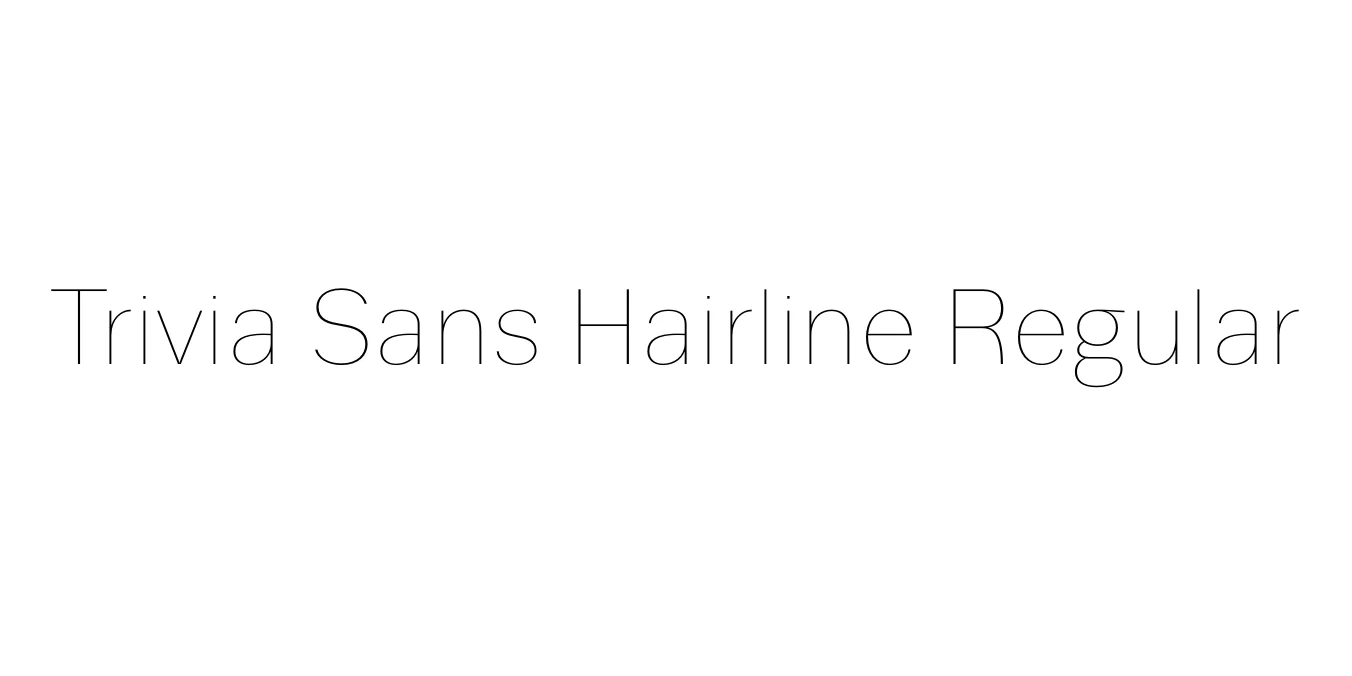
Trivia Sans Hairline Regular
Designed by František Štorm
Trivia Sans Hairline Regular is a sophisticated component of the larger Trivia superfamily, meticulously crafted by the renowned designer František Štorm. This specific weight is characterized by its extreme thinness and elegant geometric structure, offering a contemporary take on the neutral sans-serif genre. Designed to function as a high-end display face, the Hairline weight strips away visual weight to emphasize the essential skeleton of the letterforms, resulting in a typeface that feels both architectural and ethereal.
Historically, the Trivia family was developed to provide a comprehensive typographic system capable of handling complex editorial tasks. The Hairline Regular variant specifically caters to modern design trends that prioritize minimalism and whitespace. Because of its delicate stroke width, it is engineered for use at large sizes, where its precise curves and sharp junctions can be fully appreciated by the viewer without the risk of disappearing on the page or screen.
Trivia Sans Hairline Regular Best Uses
Excellent for high-fashion magazine mastheads and elegant headlines.
Ideal for luxury logos and minimalist corporate identity systems.
Striking when used for large hero section typography on modern websites.
Perfect for oversized posters and artistic exhibition catalogs.